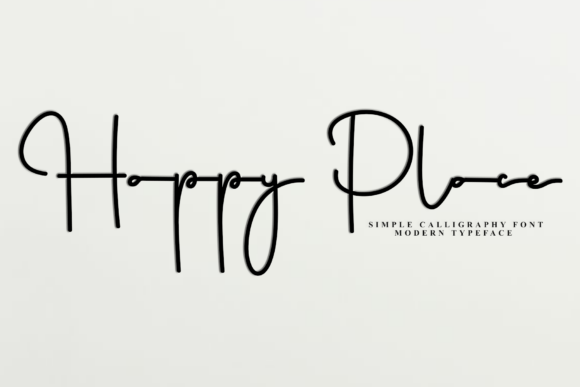
Deck the Halls with Typography: Introducing Happy Place Font
As the holiday season approaches, designers and crafty individuals alike begin to brainstorm ways to add a touch of festive cheer to their projects. You know that moment when you stumble upon the perfect font, and suddenly your design goes from bland to grand? For many of us, that moment comes when we discover the perfect font to capture the essence of the holiday season.
Enter Happy Place Font, a merry and whimsical typeface that embodies the magic of the holiday season. With its ornate elements and playful flair, Happy Place Font adds a dash of enchantment to any design. Whether you’re creating greeting cards, gift tags, or holiday-themed projects, this font brings a cheerful and nostalgic ambiance to your words. As a valuable asset for designers, Happy Place Font is PUA encoded, making it easy to access its amazing glyphs and ligatures.
Happy Place Font Key Features
- Font Family: Happy Place Font offers a unique and playful font family with multiple styles, including Happy Place Regular, Happy Place Italic, Happy Place Bold, and Happy Place Bold Italic.
- Unique Characteristics: The Happy Place Font features a cheerful and whimsical design, making it perfect for creating engaging and fun content, such as children’s books, educational materials, and advertising campaigns.
Happy Place Font Review
First impressions count, and the Happy Place Font certainly makes an impact. The playful, cursive script ✨ adds a touch of whimsy to any design, making it perfect for projects that need a bit of personality.
One of the standout features of this font is its versatility. It’s suitable for a wide range of applications, from children’s books to social media graphics, and even restaurant signage. The font’s friendly demeanor ✨ makes it easy to read and understand, even at small font sizes.
- ⚠️ Limited to a single style, which may limit its appeal for more formal designs.
- ⚠️ May not be suitable for projects requiring a more serious or professional tone.
- ⚠️ Some users may find the font’s irregularities distracting or difficult to read in certain contexts.
Overall, I’d say the Happy Place Font is a solid choice for designers looking to add a touch of fun and personality to their projects. While it may not be the best fit for every design, its unique charm ✨ makes it a great option for those who want to stand out from the crowd.
Tips for Getting the Most Out of the Happy Place Font
Use the Happy Place Font to add a touch of whimsy and fun to your designs.
Combine it with bright colors and playful graphics for a cohesive look.
Experiment with different font sizes and styles to add emphasis and visual interest.
The Happy Place Font is perfect for:
Creative projects, such as social media graphics and blog posts.
Children’s party invitations and decorations.
Brand identities and marketing materials that need a playful touch.
Alternatives to Happy Place Font for Designers
Lato is a popular sans-serif font designed by Łukasz Dziedzic. It’s a great alternative to Happy Place Font for body text and headings. Lato is more versatile and has a wider range of weights, making it suitable for various design projects.
Compared to Happy Place Font, Lato is more modern and has a cleaner design. It’s also more readable at smaller font sizes, making it a great choice for digital designs.
Montserrat is a sans-serif font designed by Julieta Ulanovsky. It’s a great alternative to Happy Place Font for urban and modern designs. Montserrat is highly legible and has a strong x-height, making it perfect for body text.
Compared to Happy Place Font, Montserrat is more geometric and has a stronger structure. It’s also more suitable for digital designs and can be used for a wide range of projects.